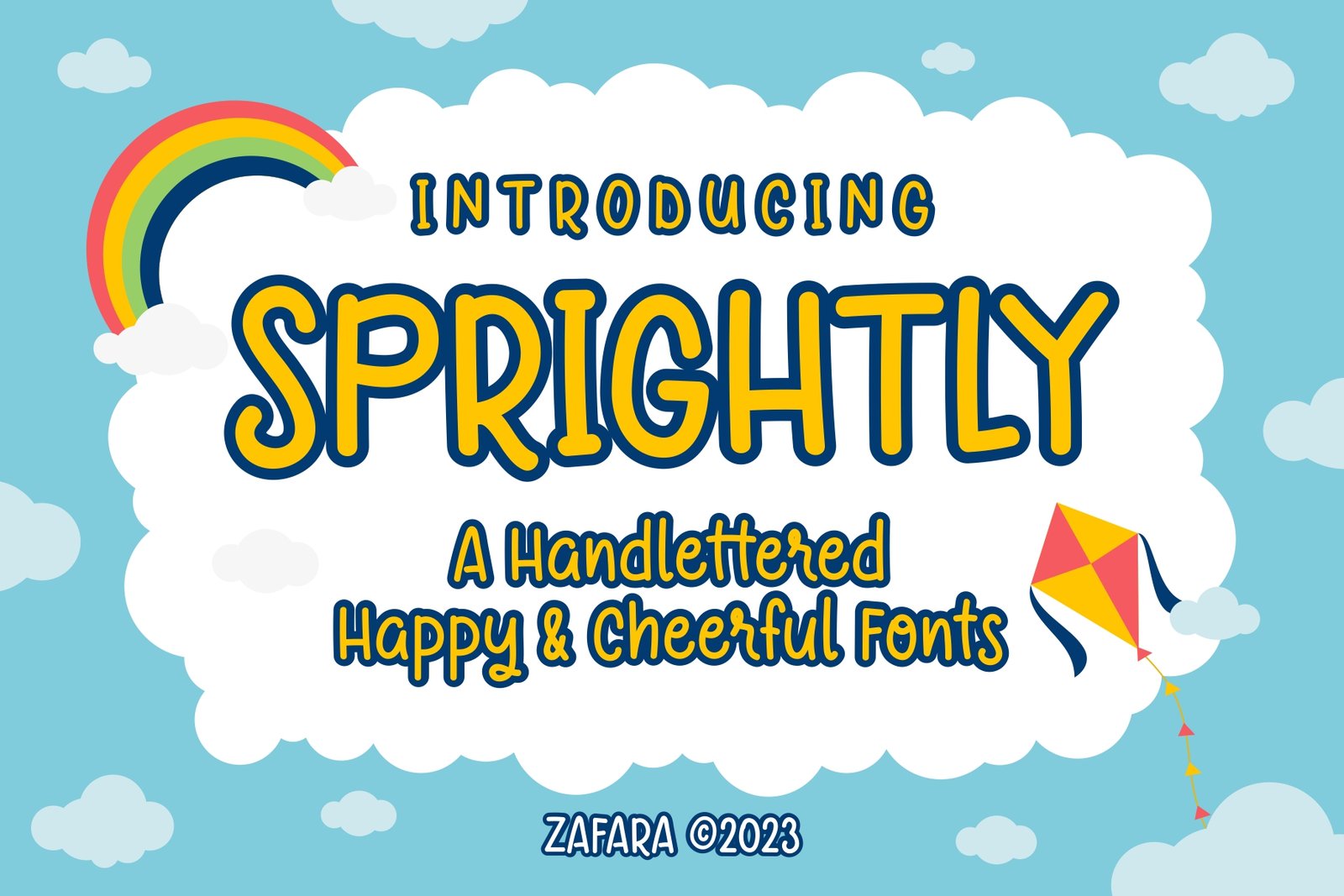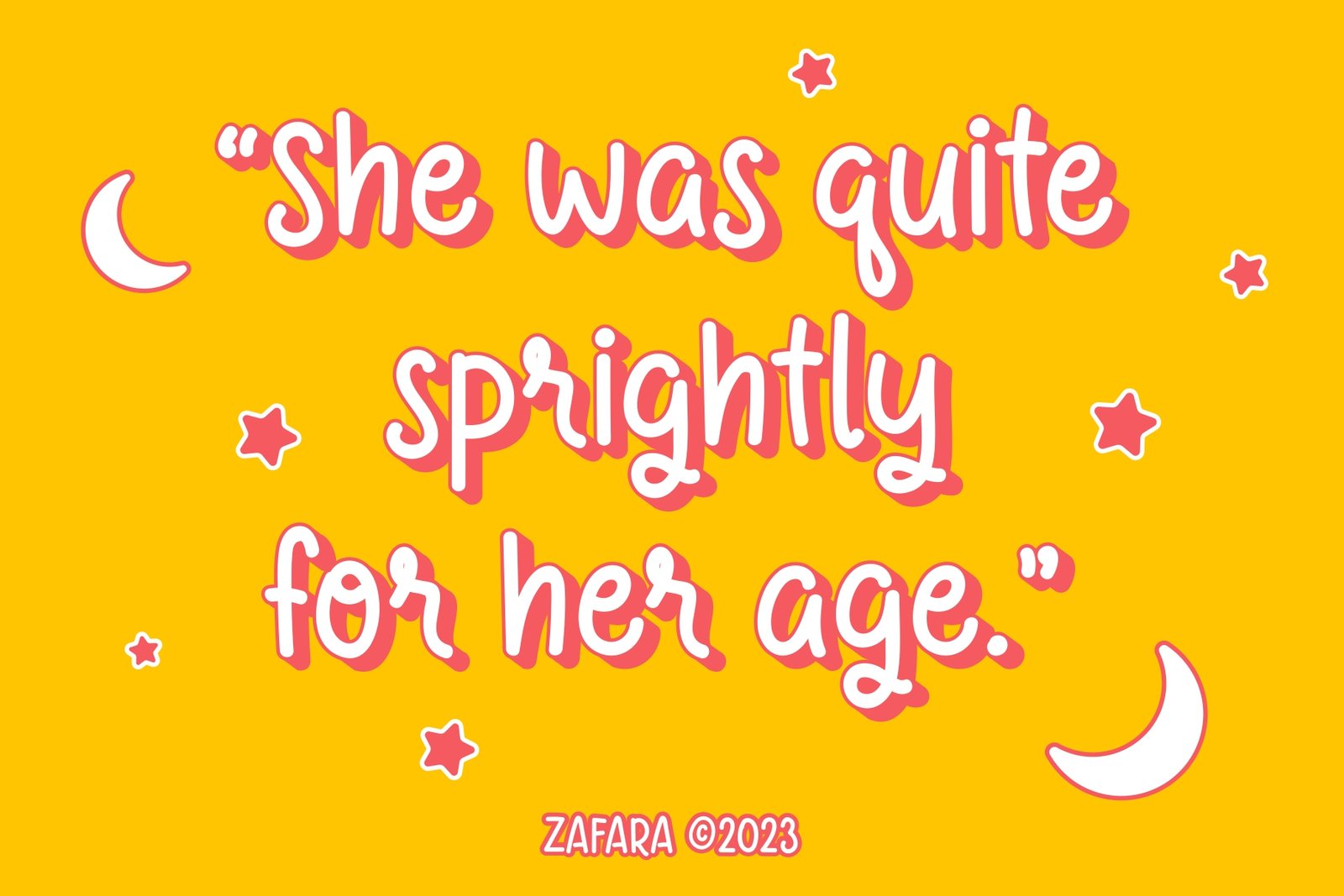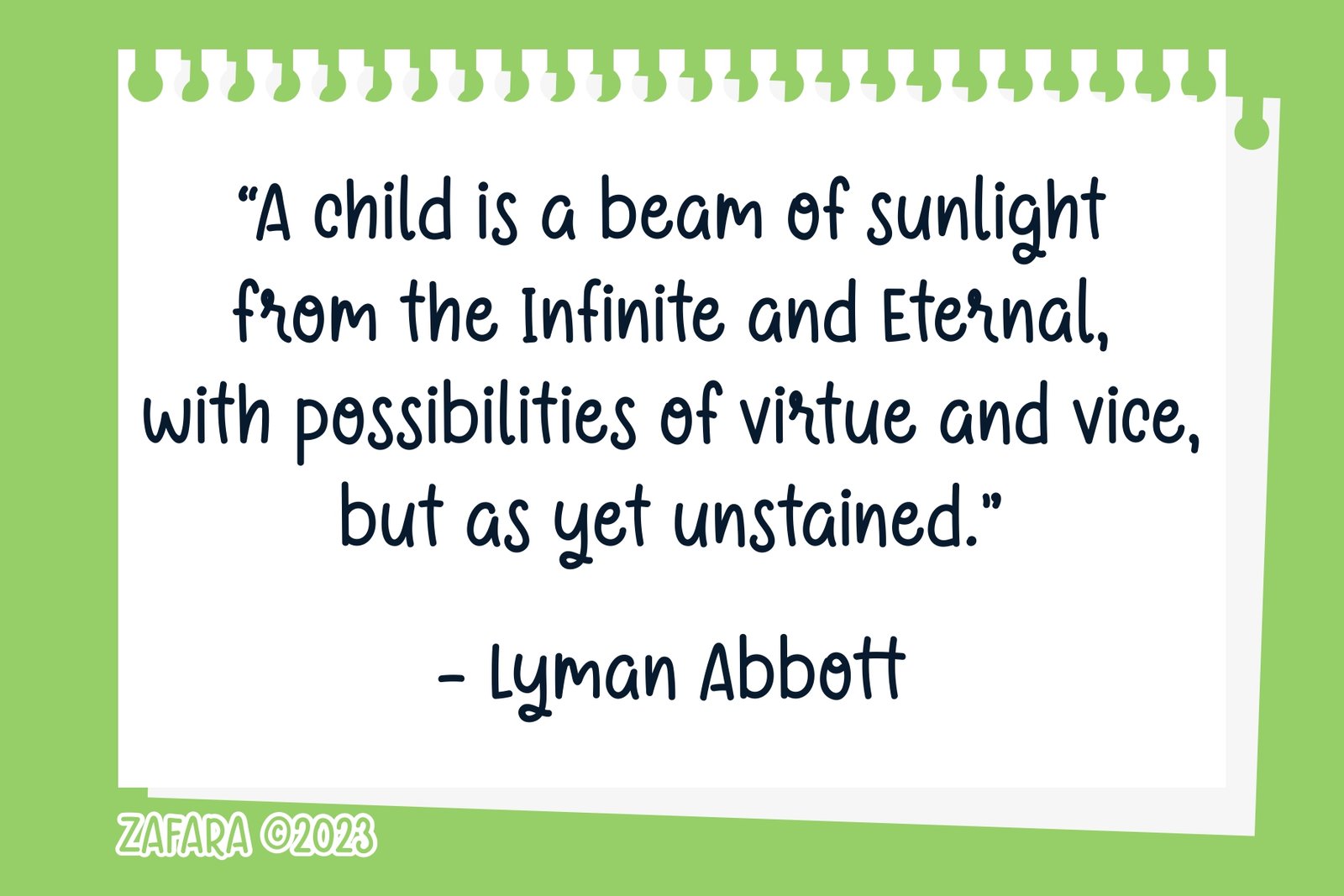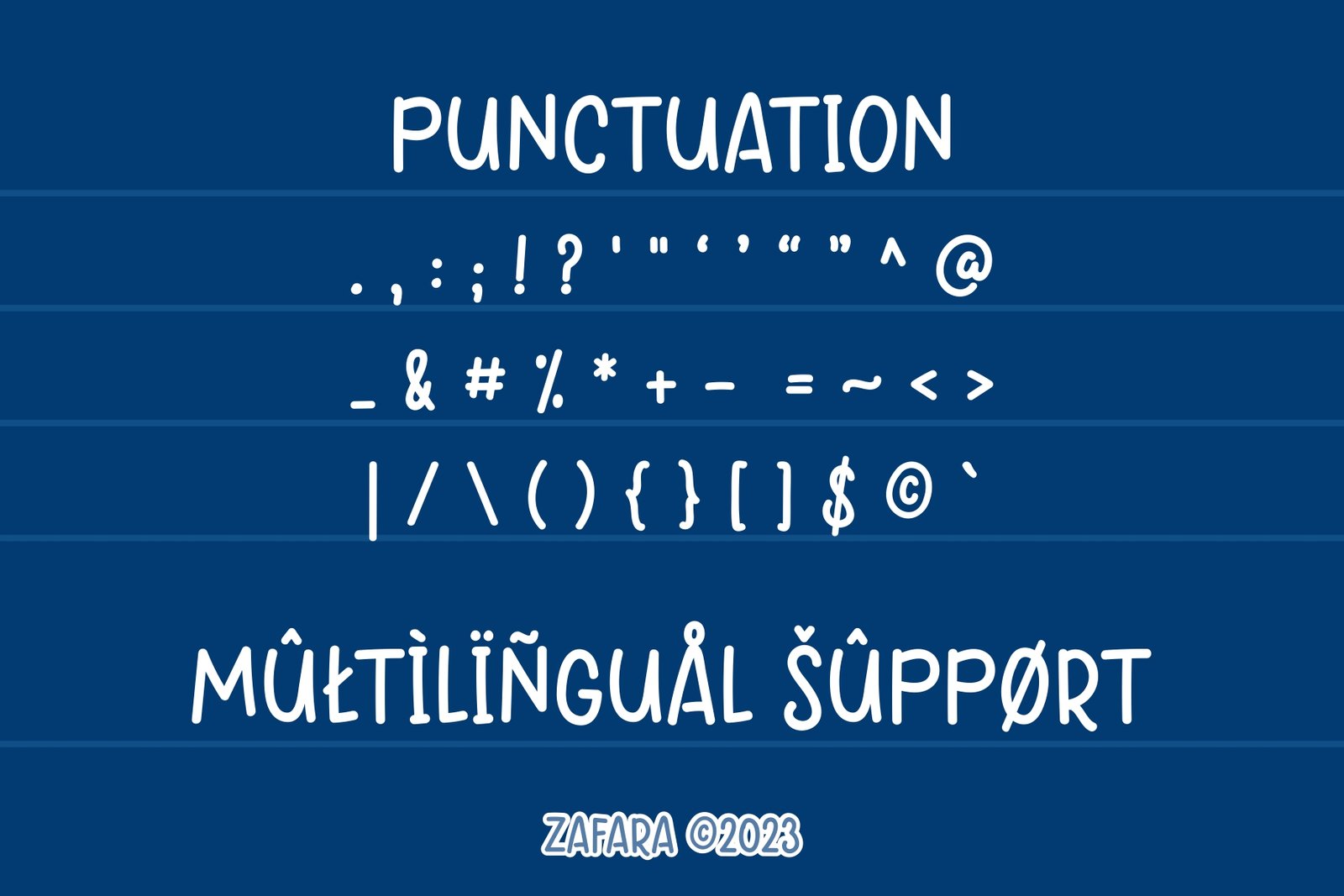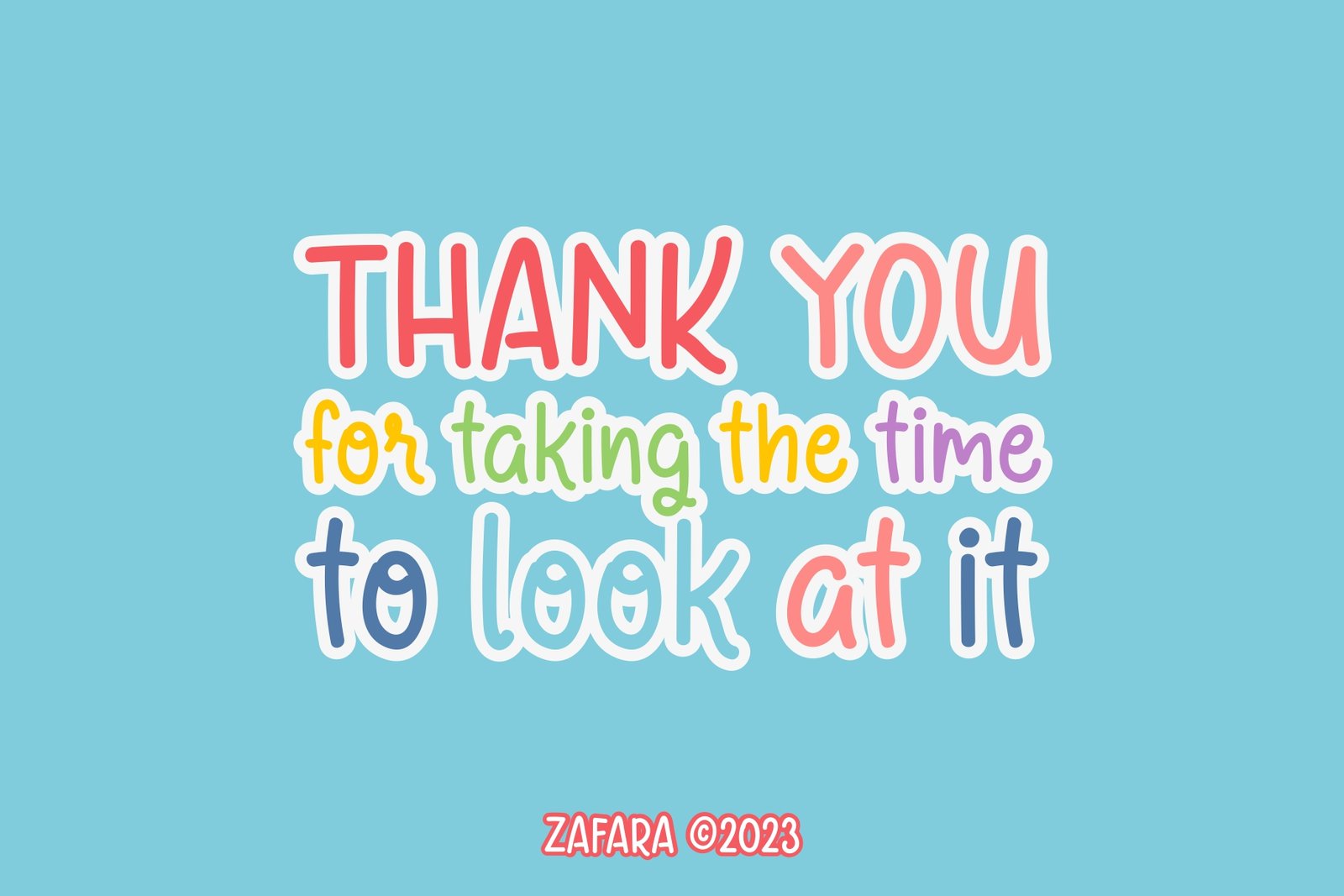
A banner introducing the Sprightly font, a happy and cheerful handlettered typeface with a rainbow and kite illustration.
An example of the Sprightly font used in a quote, featuring a bubbly style on a bright yellow background with stars and moons.
A character sheet showing the full alphabet (uppercase and lowercase) and numbers for the Sprightly font.
A quote by Lyman Abbott written in the Sprightly font on a green paper background.
A list of punctuation marks, symbols, and multilingual characters included in the Sprightly font.
A thank you message written in the multi-colored Sprightly font on a light blue background.
Sprightly is a cheerful handlettered font designed to evoke feelings of joy, happiness, and playfulness. With its bubbly, friendly, and inviting aesthetic, this cheerful handlettered font is perfect for children’s products, engaging marketing materials, and any creative project that aims to create a bright, uplifting, and cheerful mood. However, its versatile nature means it can also be used across a wider range of creative themes and industries, depending entirely on your specific design needs and desired outcome.
• 139 Glyphs: Uppercase, lowercase, numbers & language support
• 5 Glyphs ligature
• 23 Glyphs punctuation
• Language Support: Danish, English, French, German, Irish, Italian, Portuguese, Spanish, Swedish, & Swiss German
Sprightly – A Handlettered Fonts
Sprightly is a cheerful handlettered font designed to evoke feelings of joy, happiness, and cheerfulness. This cute kids font can be used in children’s products and marketing.